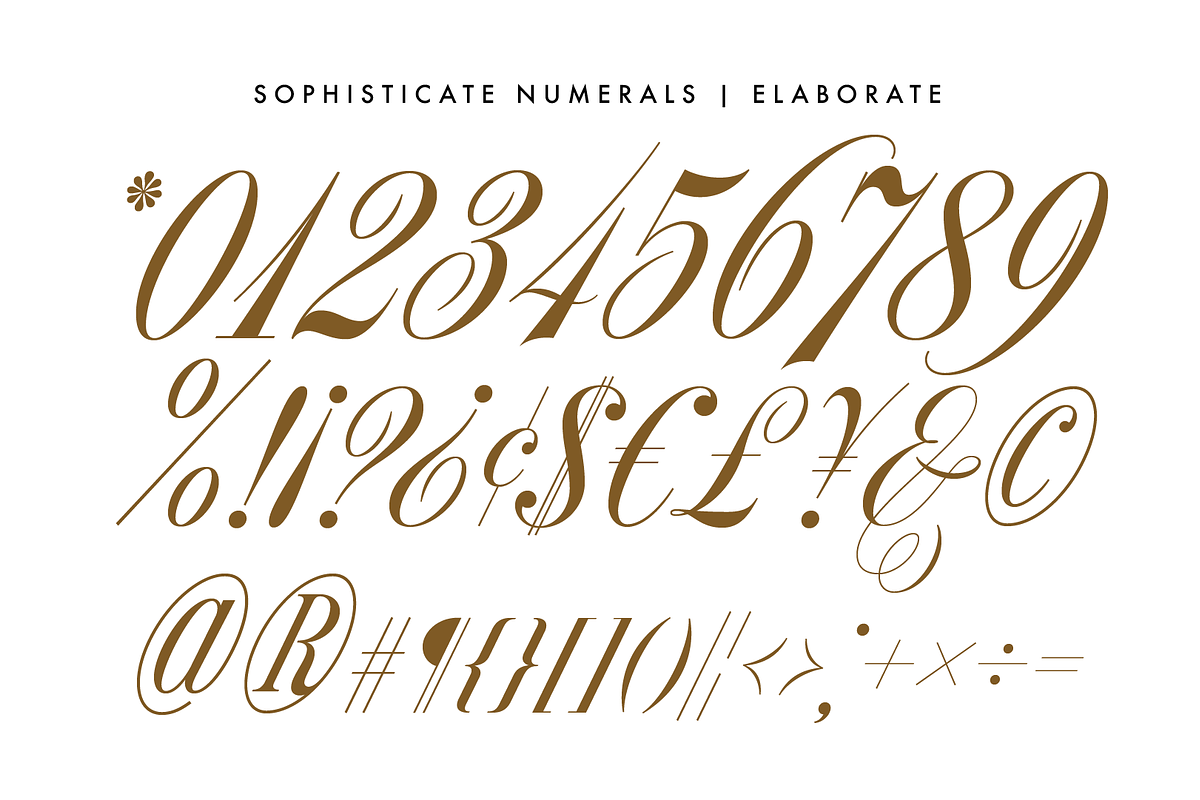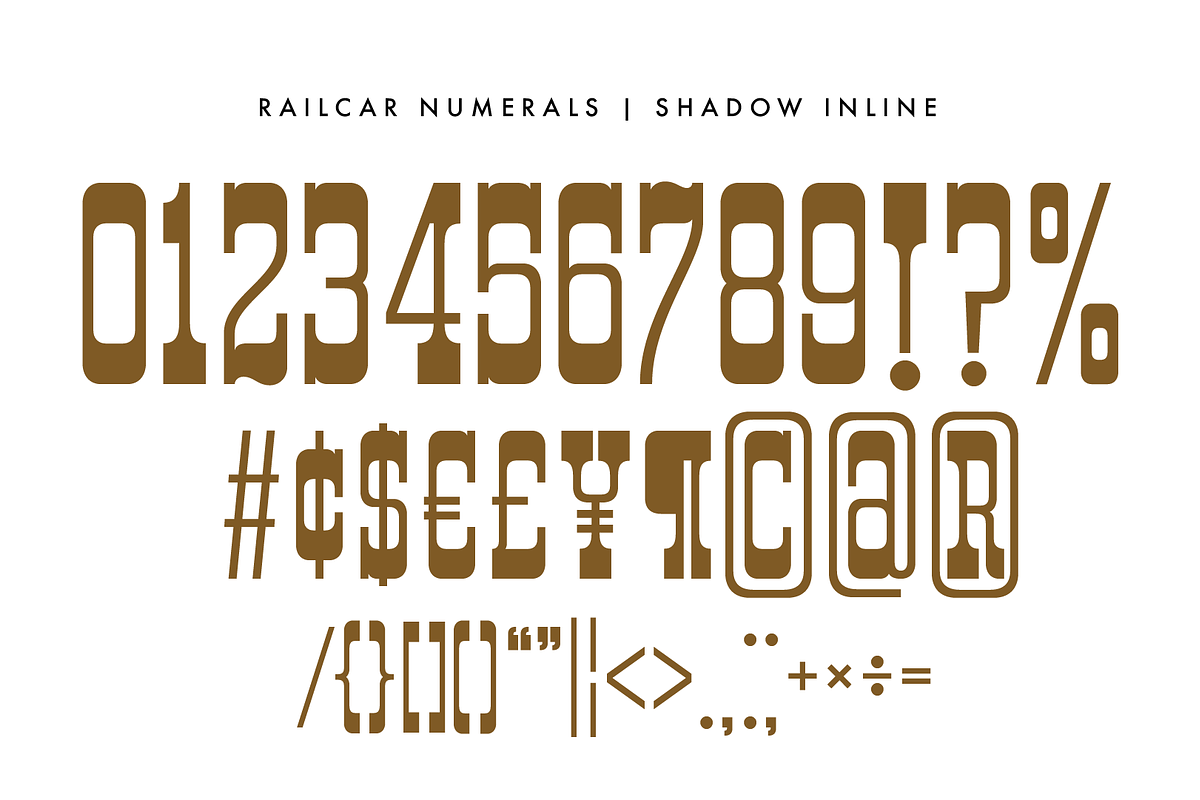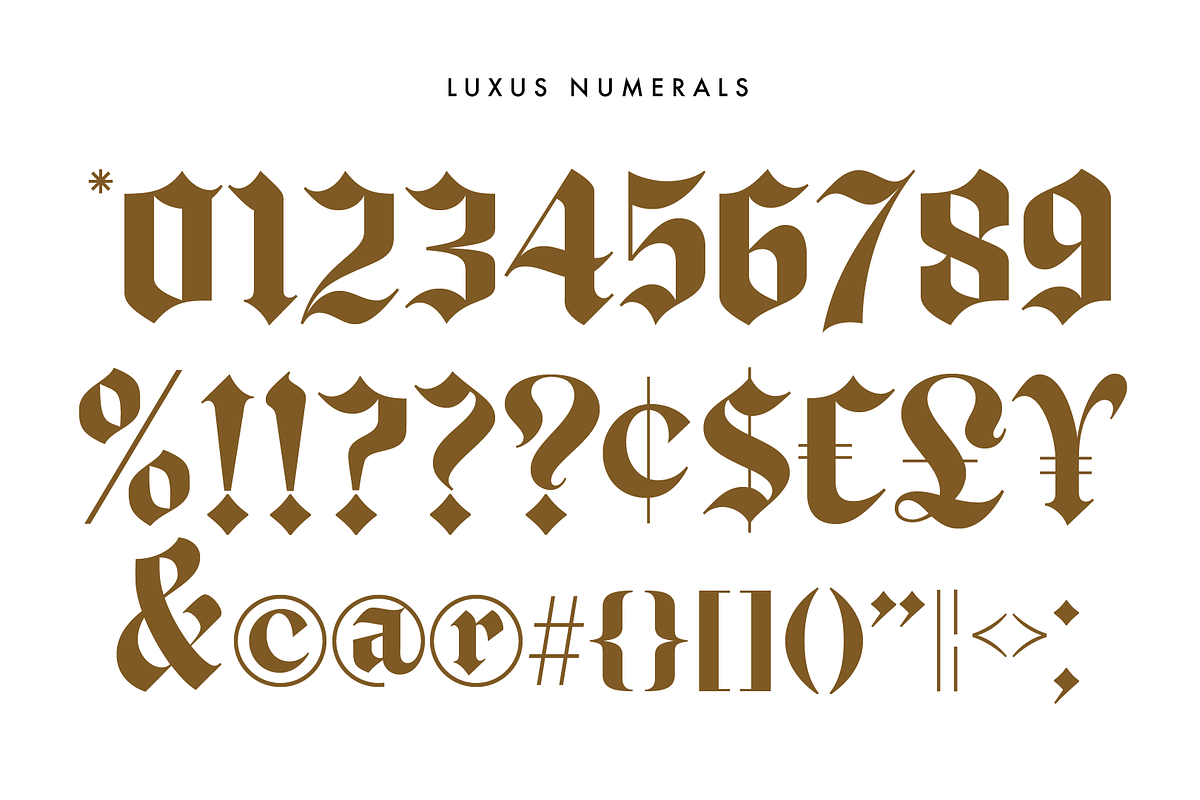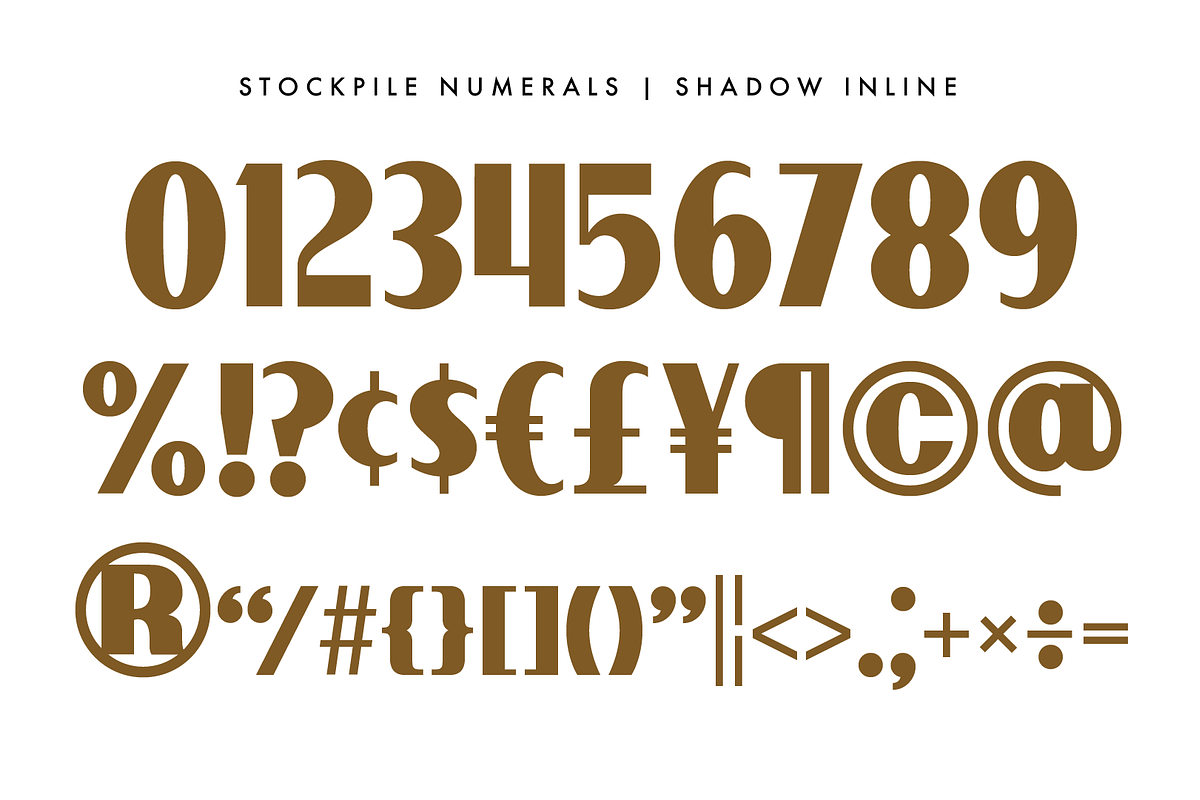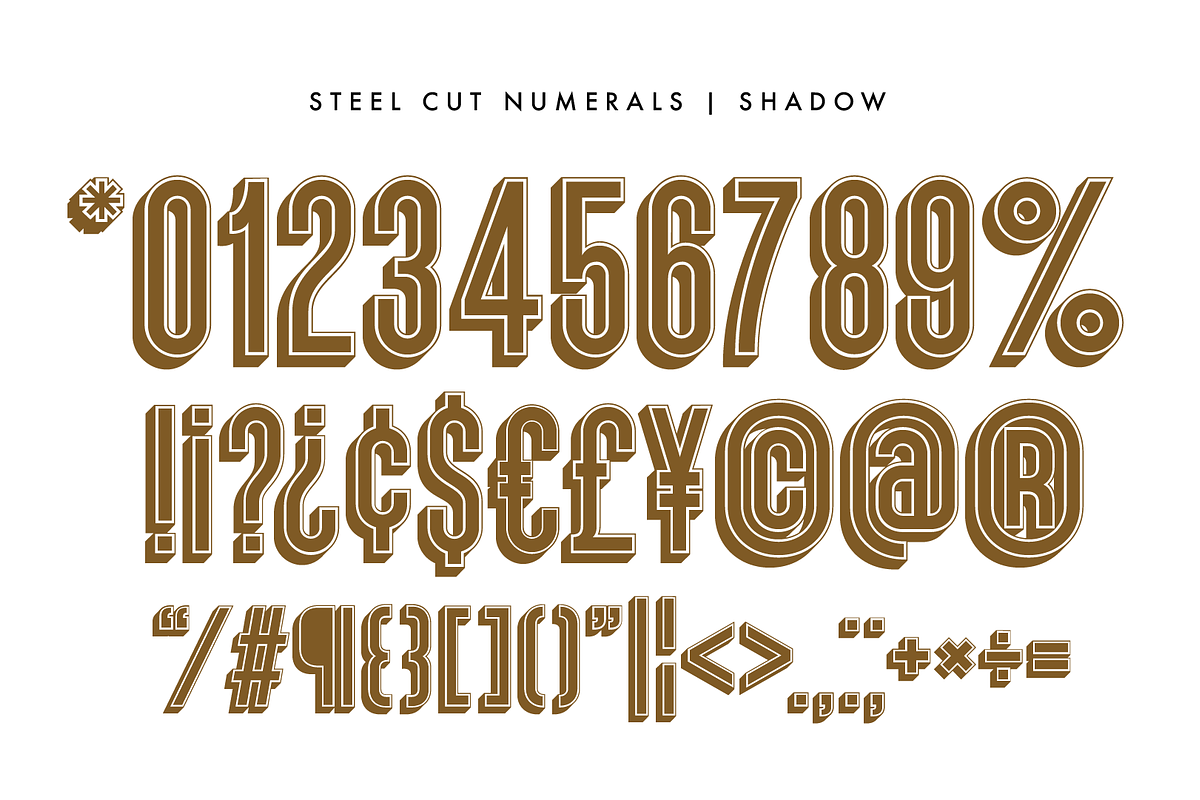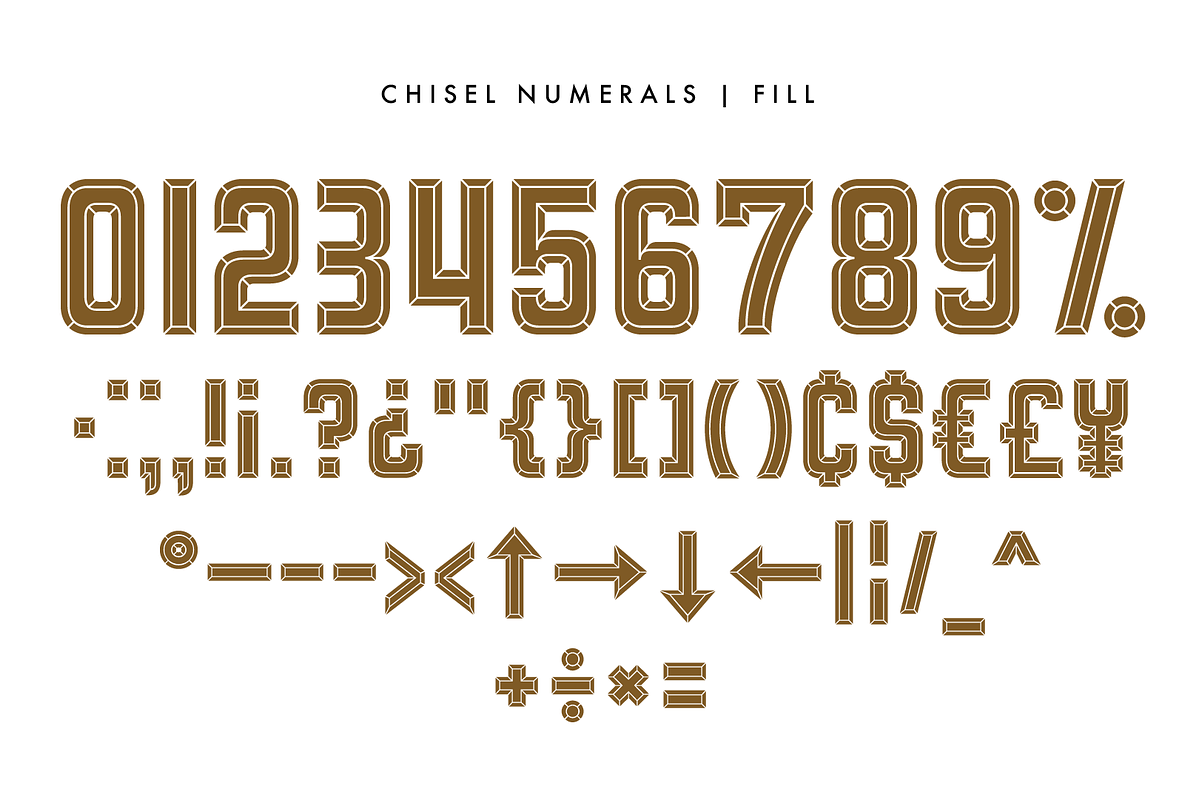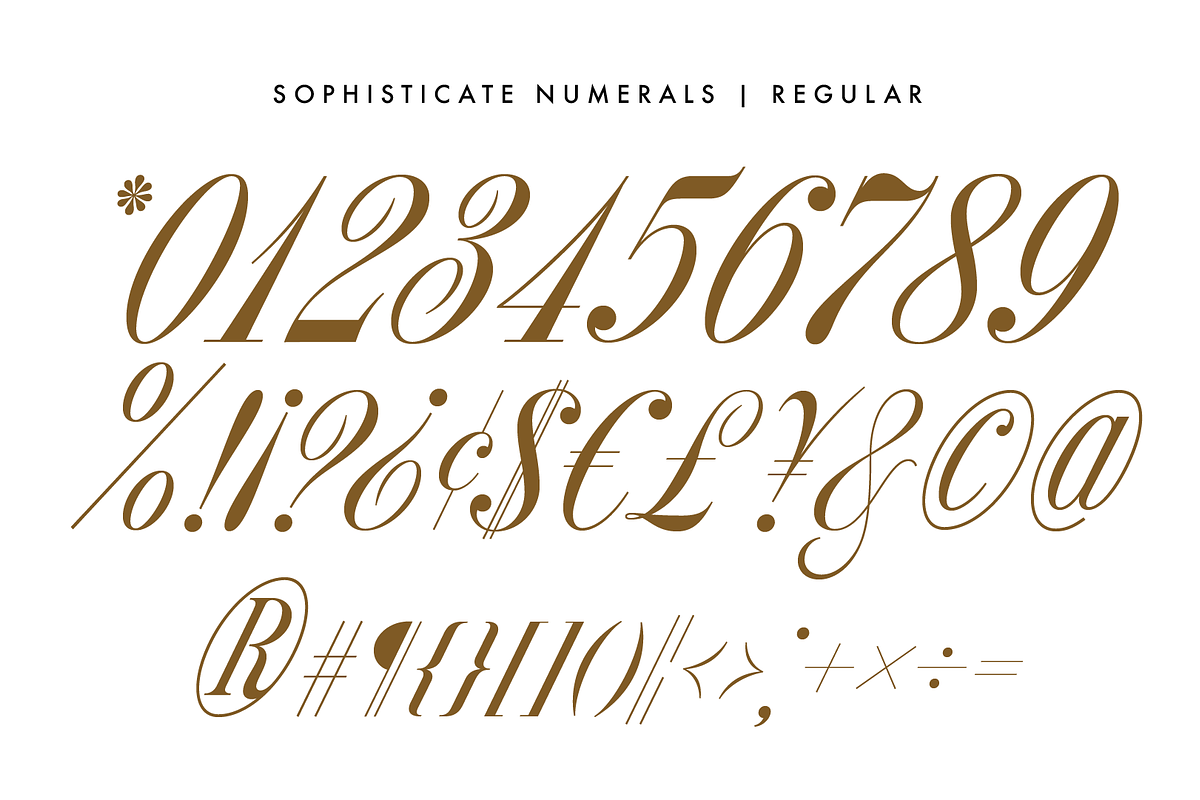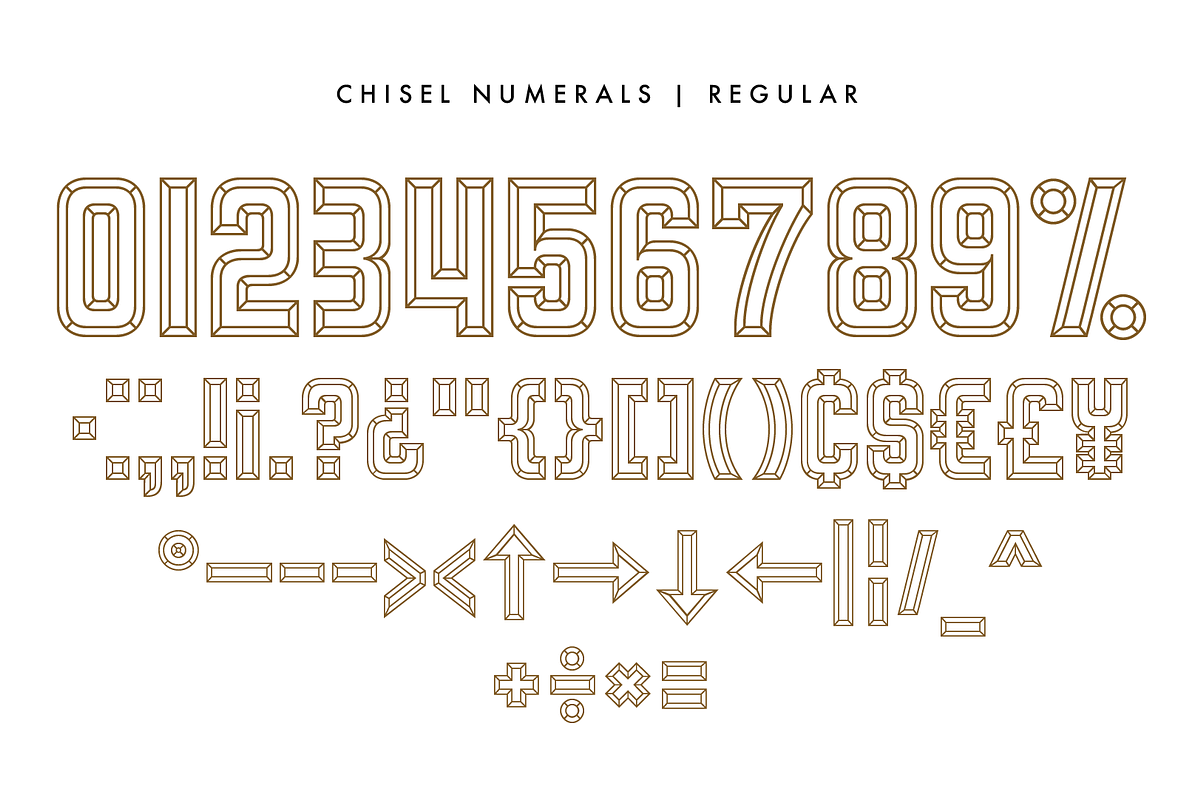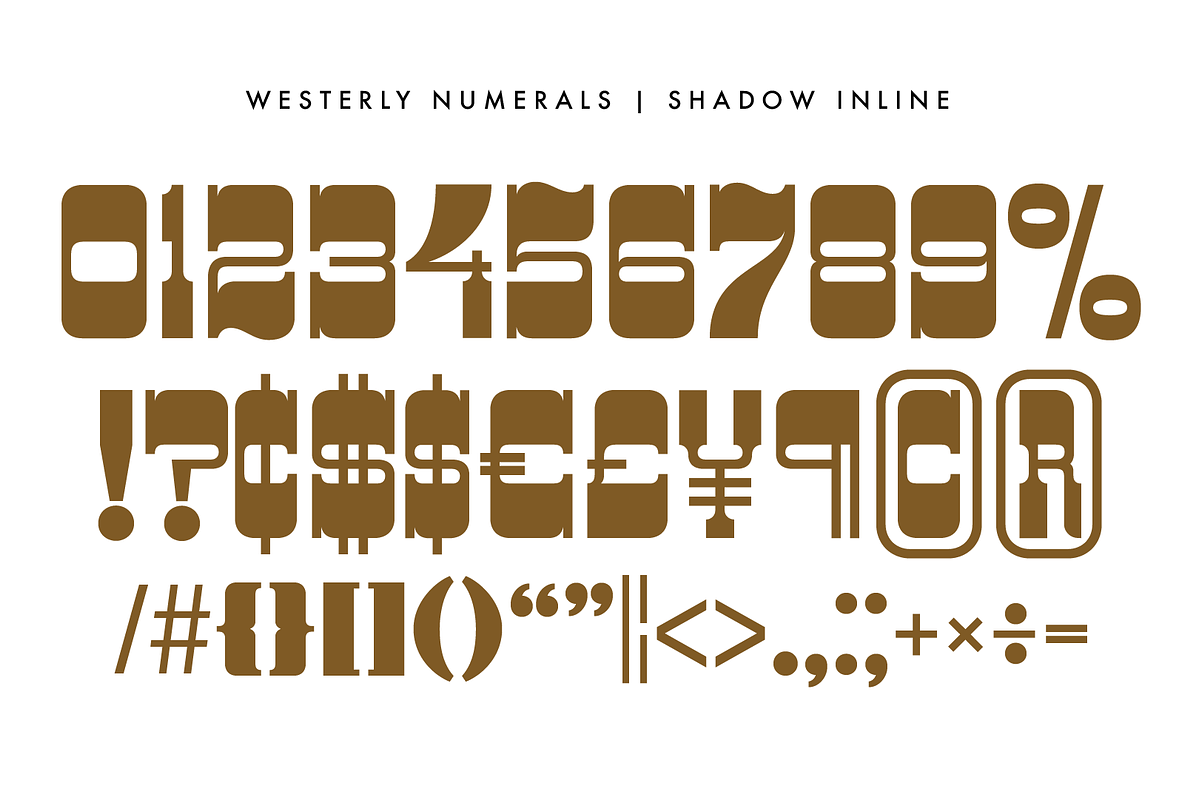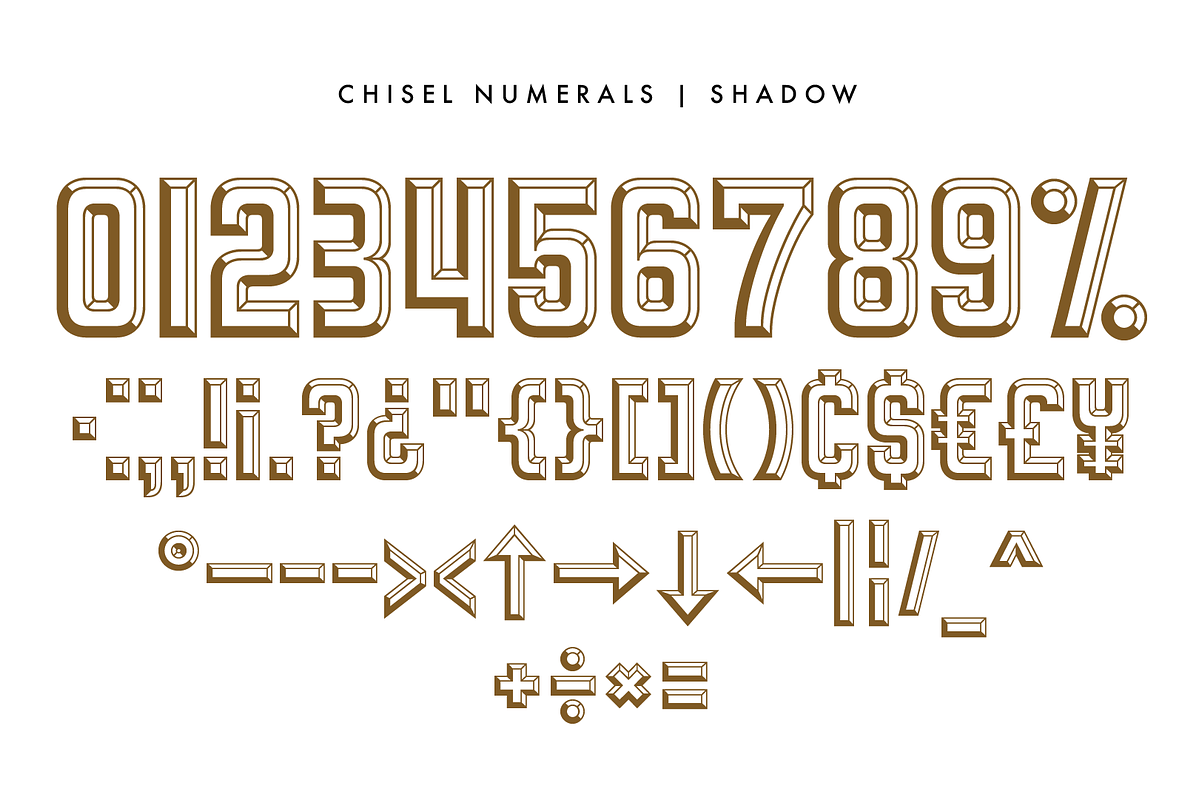
The Numerals Collection
When words aren't enough
10 numeral fonts to jump-start your creativity and animate your lettering tool kit. Drawn from 10 unique lettering styles, Drew Melton has crafted this collection from the ground up to provide the highest quality and variety. Each font includes elegant numerals characters, punctuation, special characters and exciting alternates throughout.
These fonts work great for designing page numbering systems for books or magazines, sale signage, window displays, clocks, digital timers or custom illustration work. Really, your creative options are endless.
- 10 numeral fonts.
- Numerals 0-9.
- A wide assortment of excellent special characters.
- Stylistic alternates in some fonts.
- Punctuation.
- All currency symbols.
- Designed by Drew Melton.